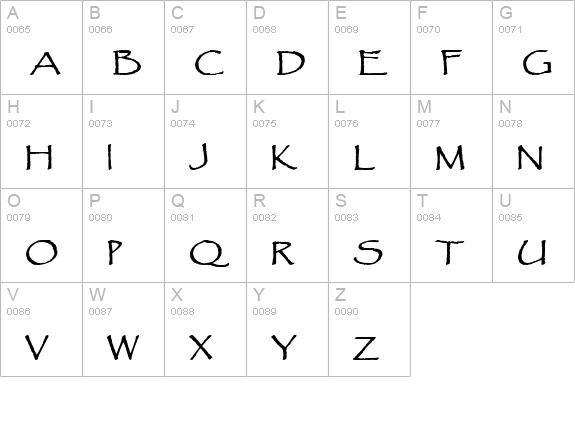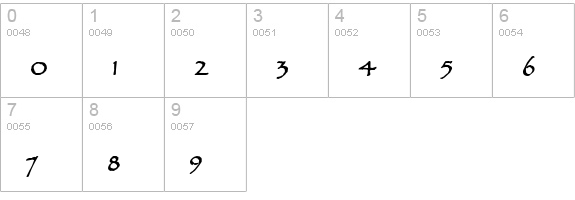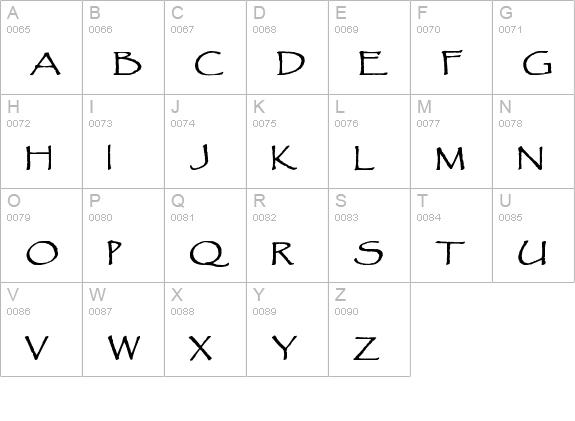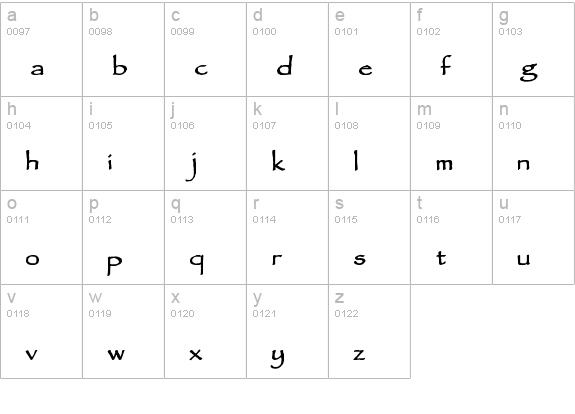
Chalk-Extended Bold is a strong, high-contrast, extended-width variant in the Chalk typeface family \xE2\x80\x94 well suited to headlines, attention-grabbing titles, and strong calls-to-action.
Chalk-Extended Bold font is a stylish and modern typeface that exudes confidence and creativity. With its bold and extended design, this font is perfect for making a bold statement in your designs. Its unique chalk-inspired appearance adds a touch of playfulness and charm, making it suitable for a wide range of projects. Best of all, Chalk-Extended Bold font is available for free download at FontsMarket.com. Whether you're working on a poster, logo, website, or any other design project, this font will help you stand out and make a lasting impression. Don't miss out on the opportunity to add this versatile and eye-catching font to your collection today!